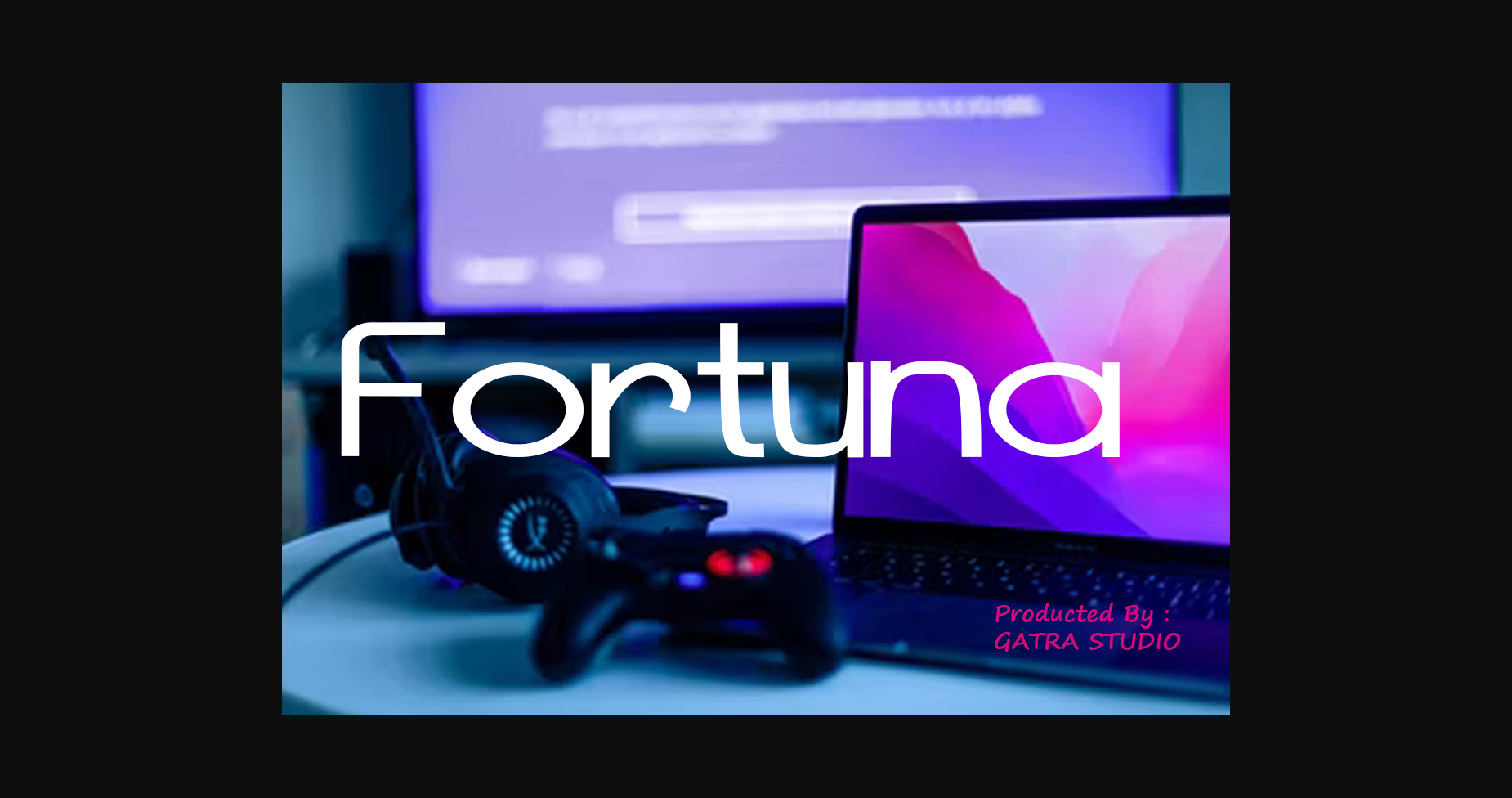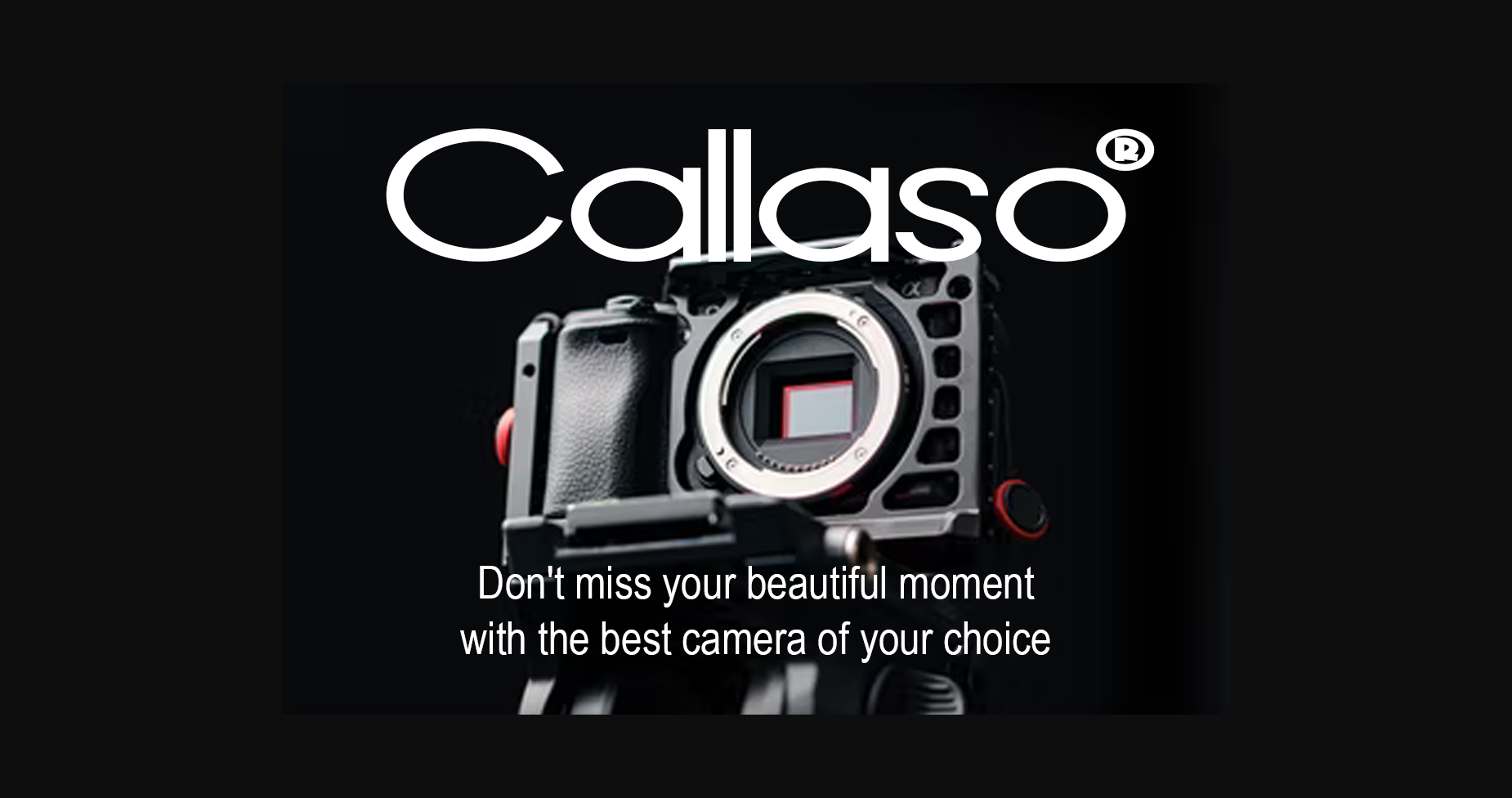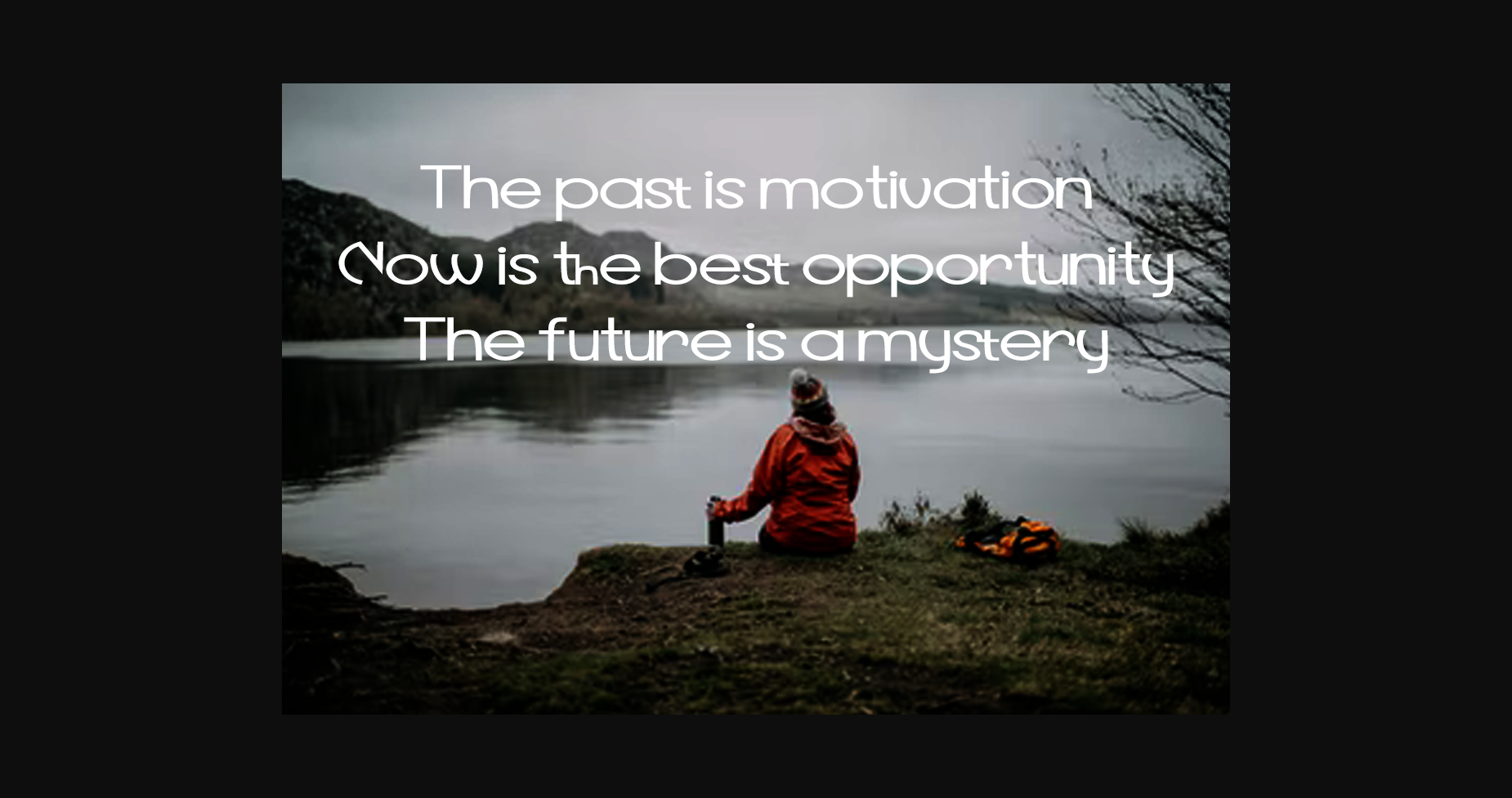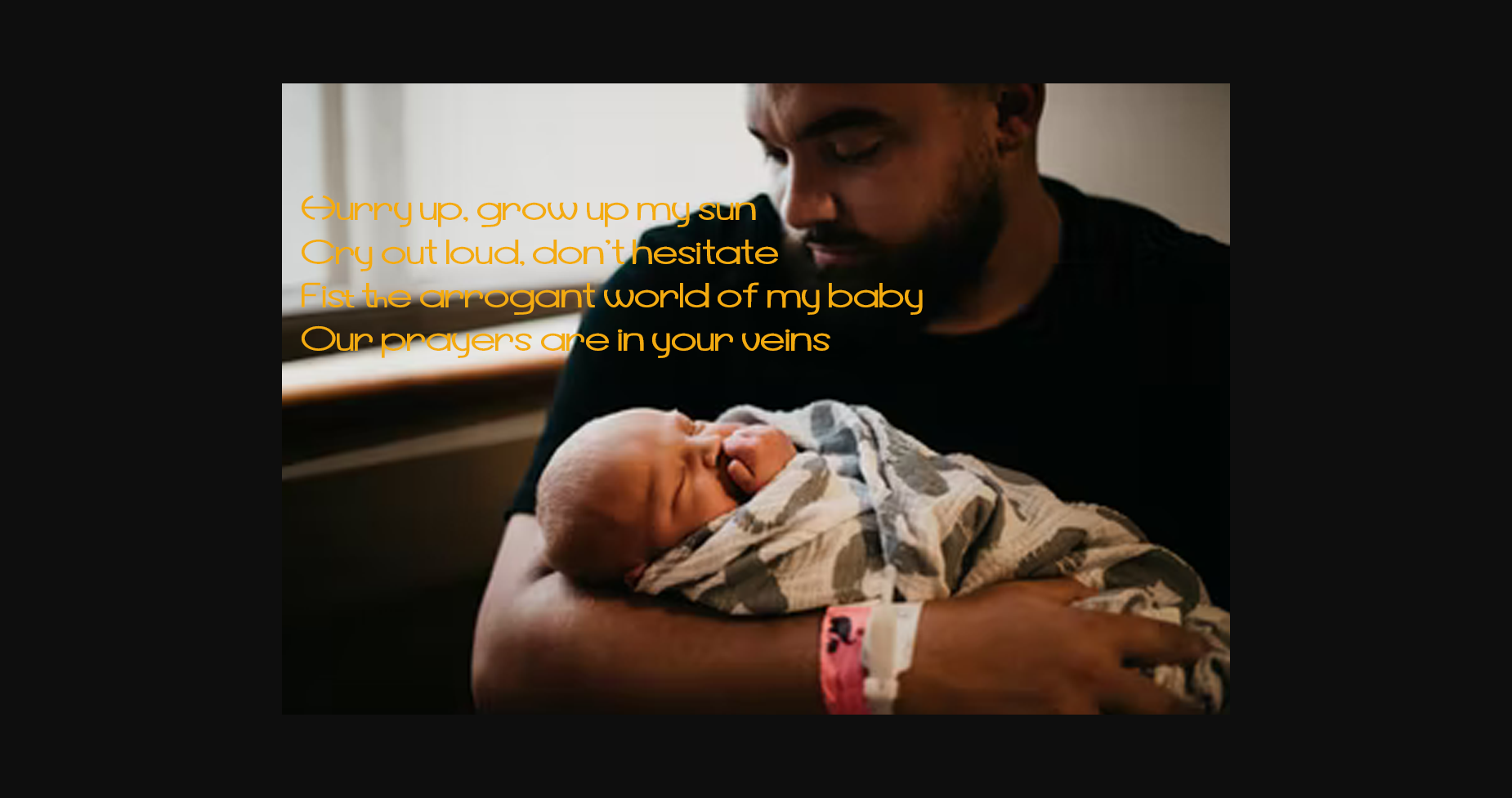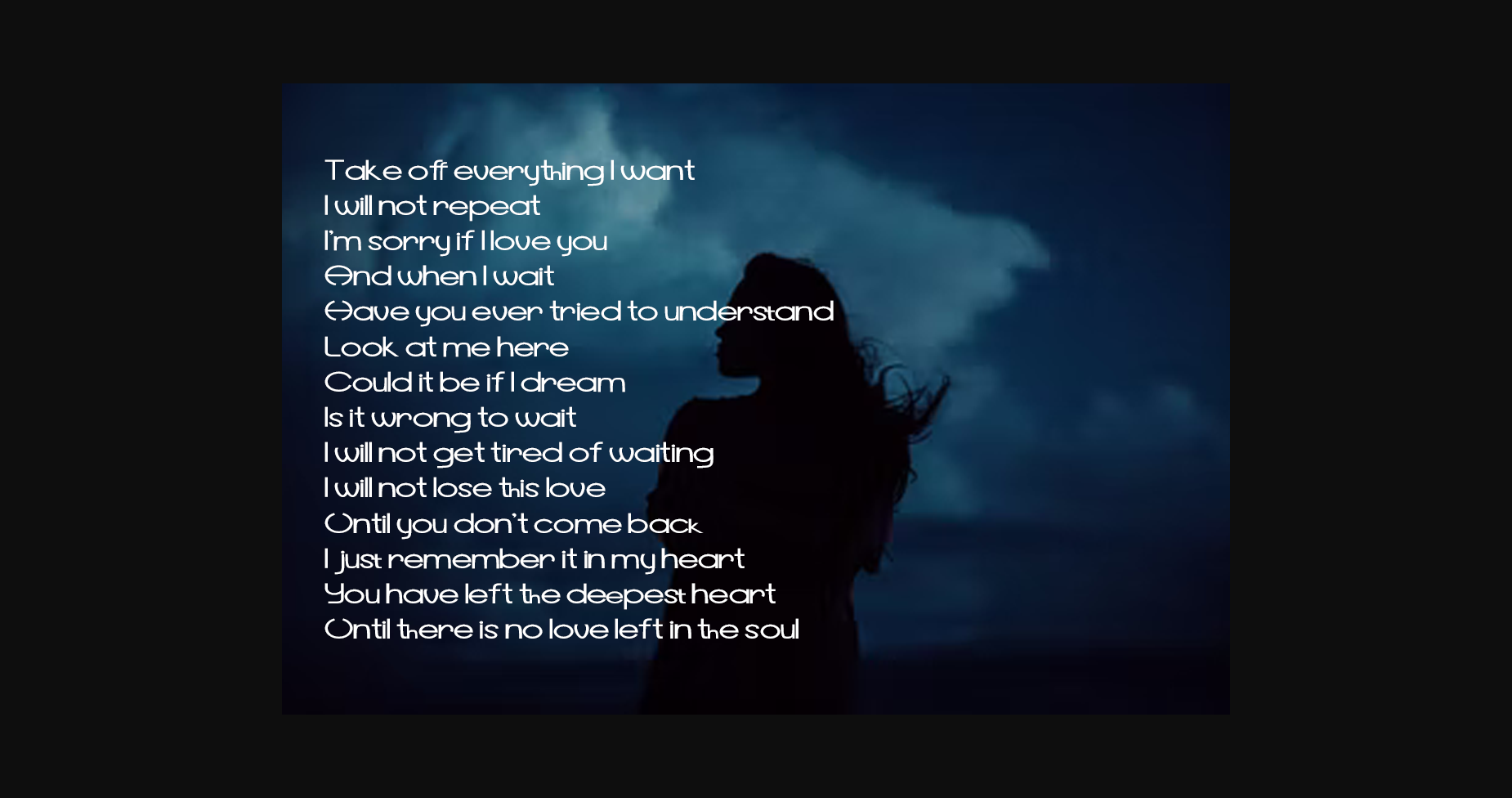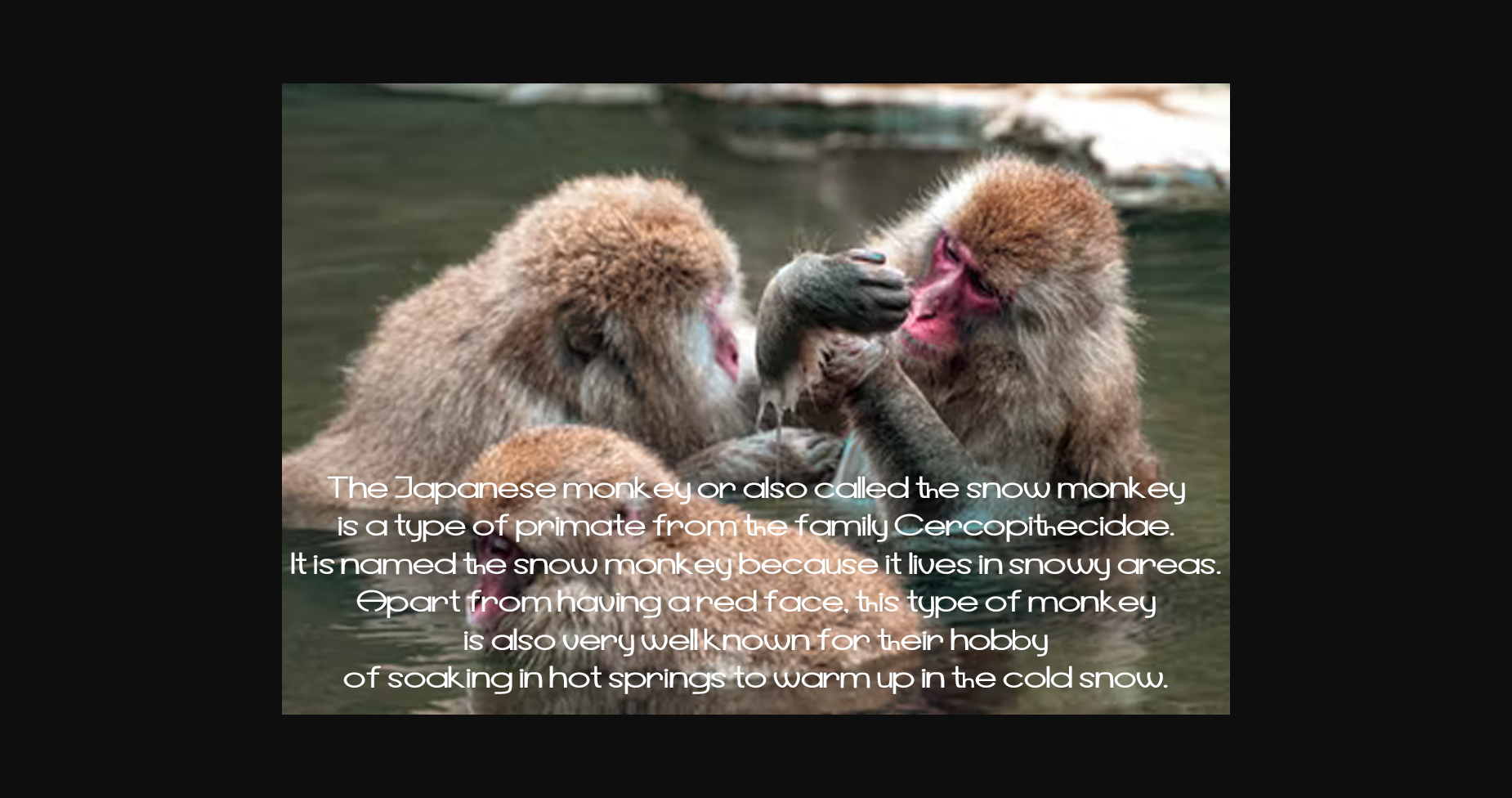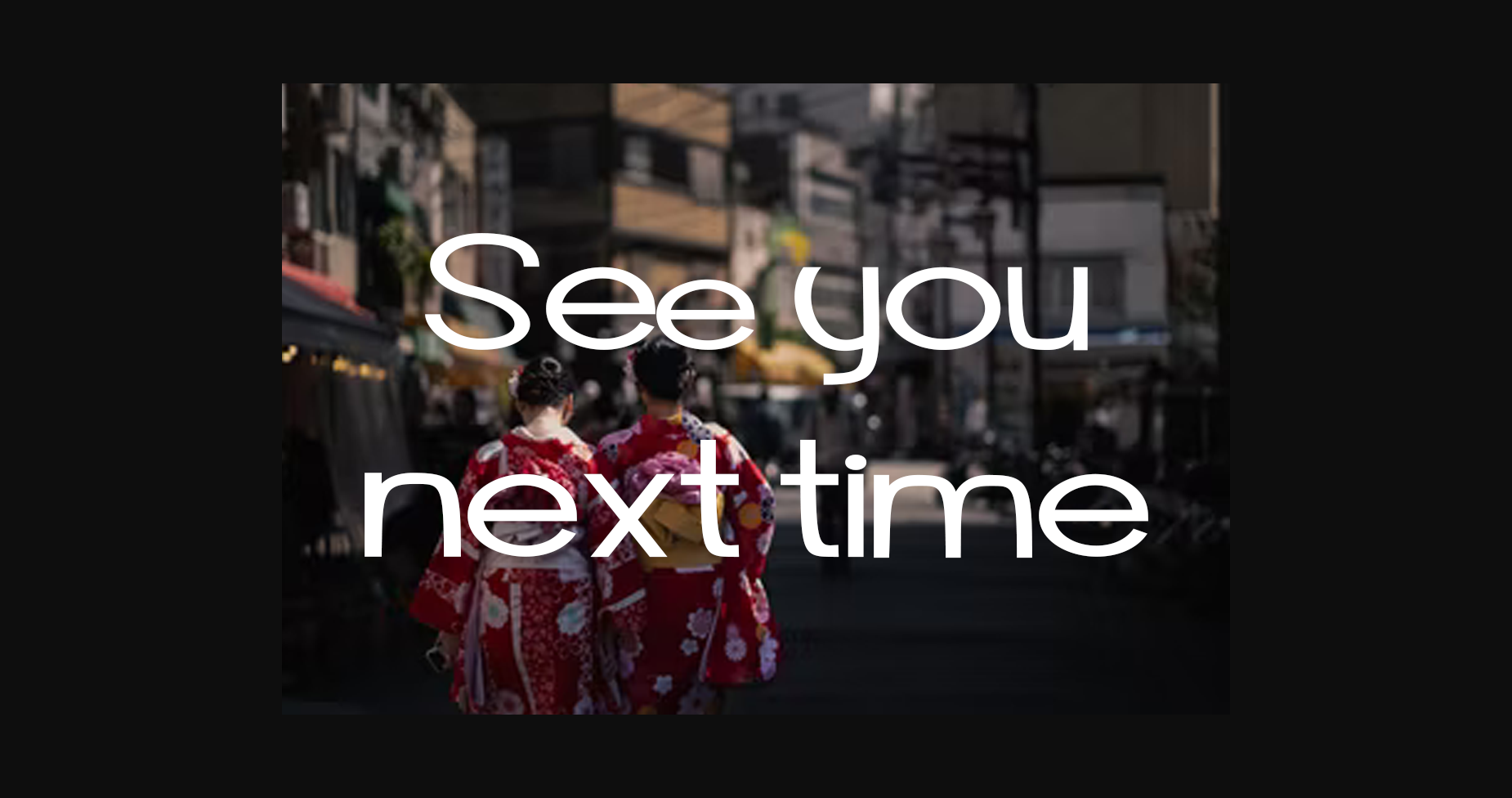
Fortuna Font
About Fortuna Font
Introducing a cute sans serif font named “Fortuna”
If you need a touch of casual and modern Sans-Serif characters for your designs, this font was created for you!